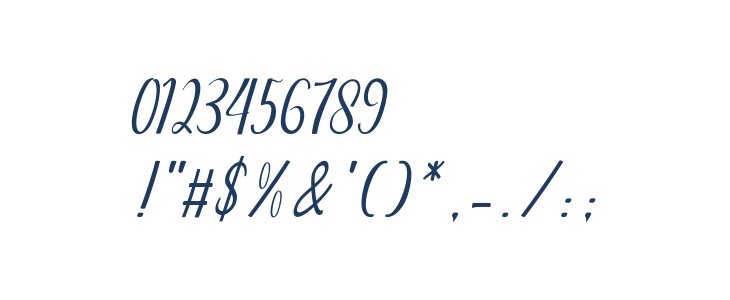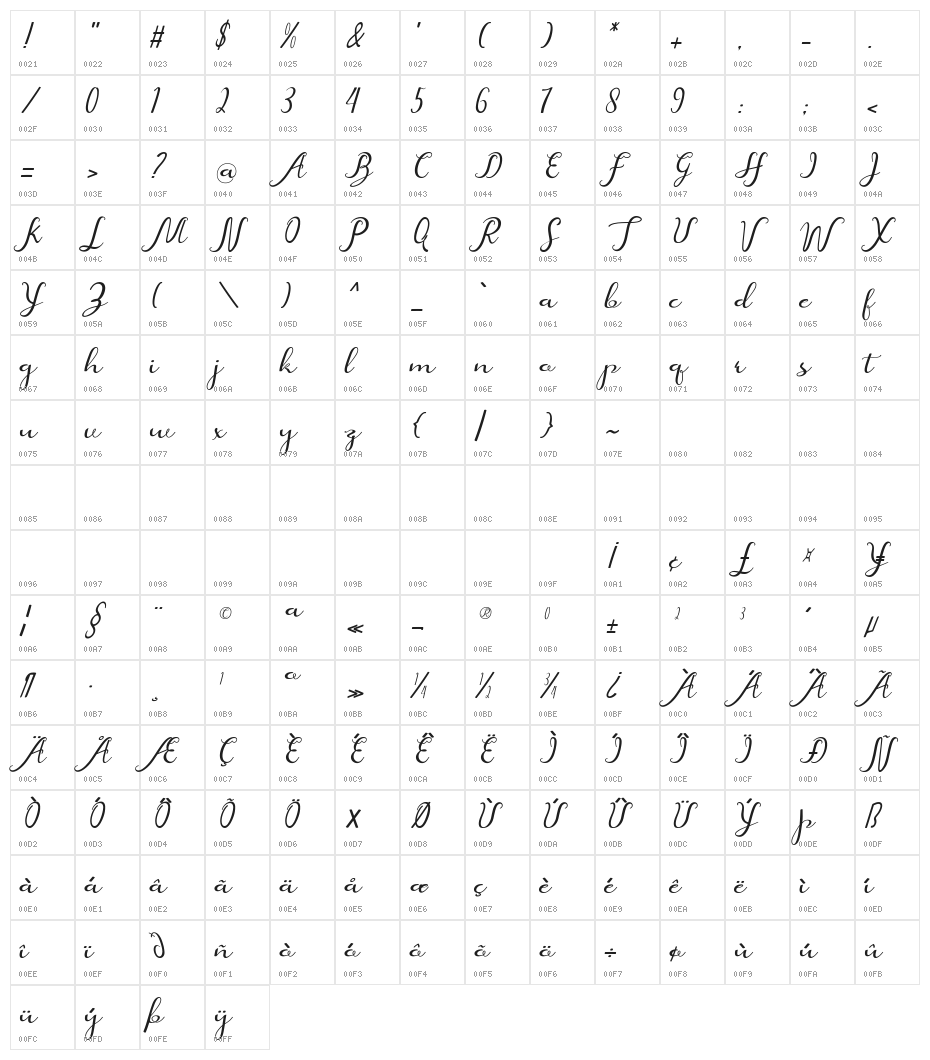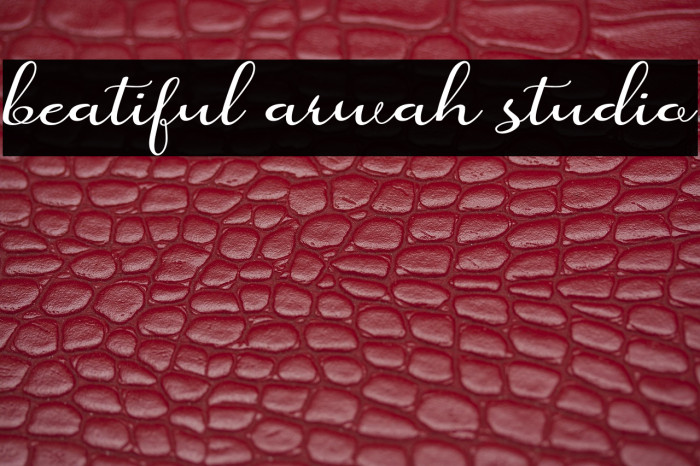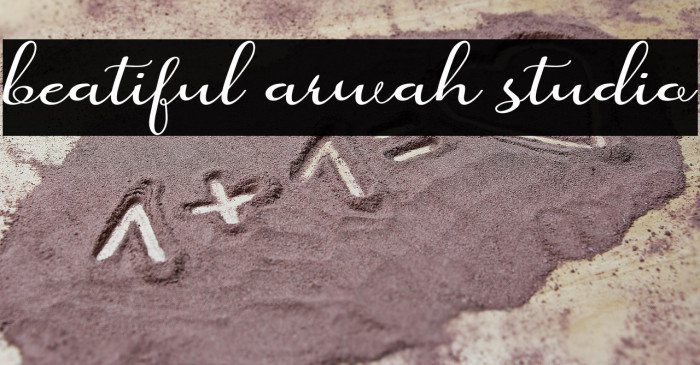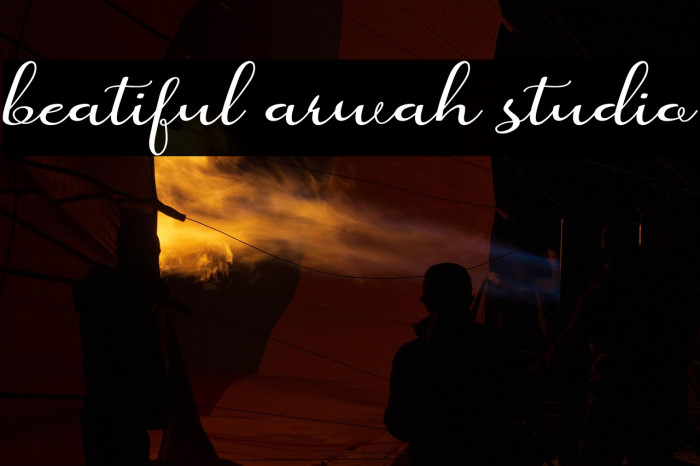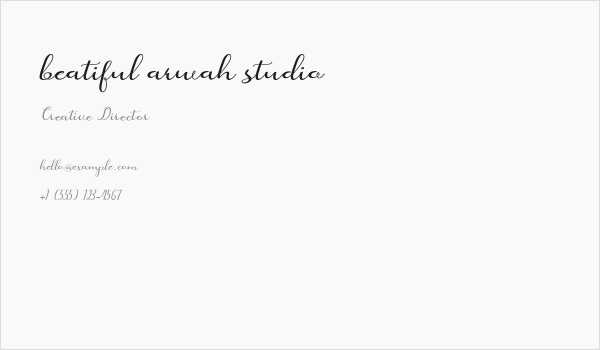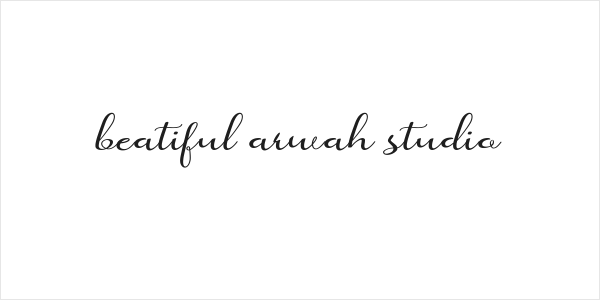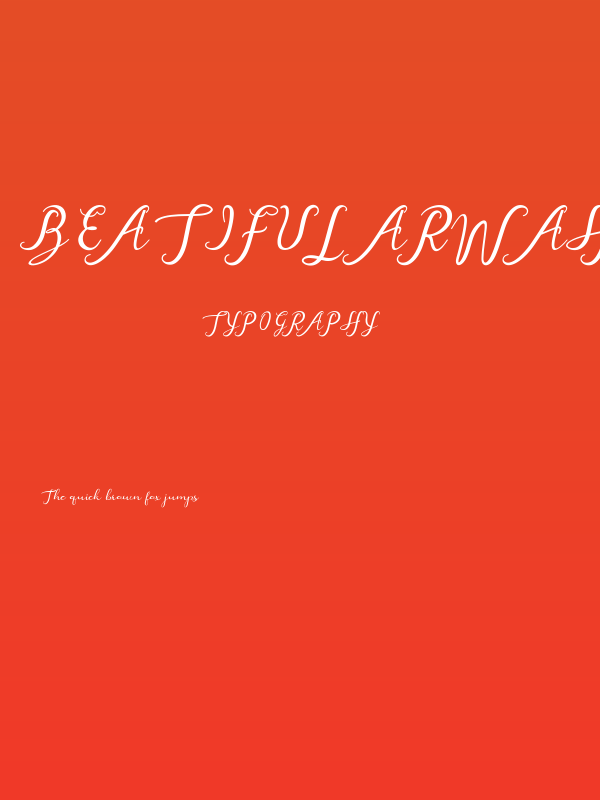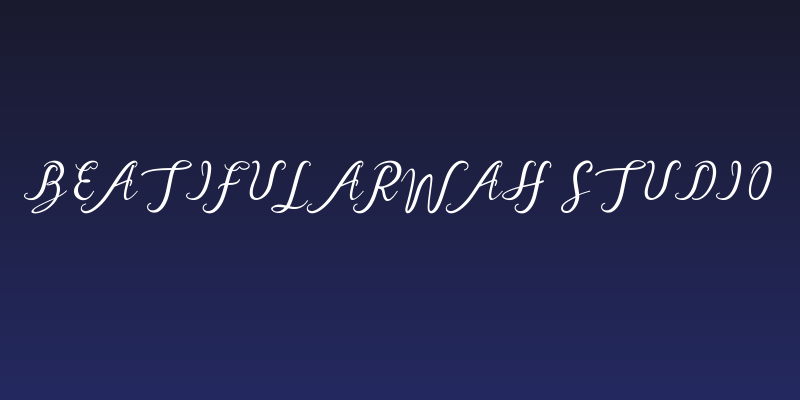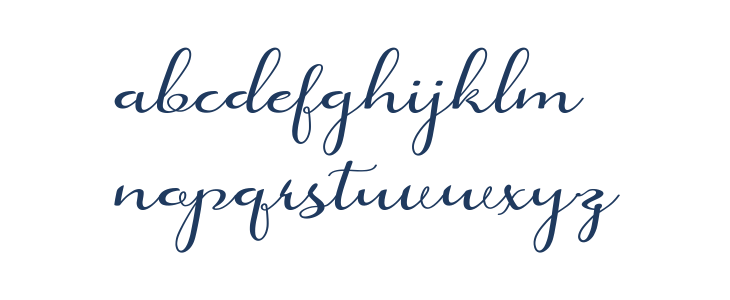
beatiful arwah studio Font
beatiful arwah studio Description
This elegant script font features a fluid and graceful design, characterized by its smooth, flowing curves and delicate strokes. The uppercase letters are ornate, with a slight slant that adds a touch of sophistication. The lowercase letters maintain a consistent style, enhancing readability while preserving the font's decorative nature. Numbers and special characters are crafted with the same attention to detail, ensuring a cohesive look across all text elements. This font's artistic flair makes it ideal for projects that require a personal and stylish touch.